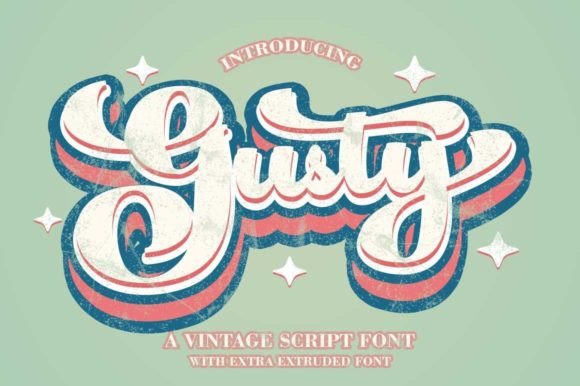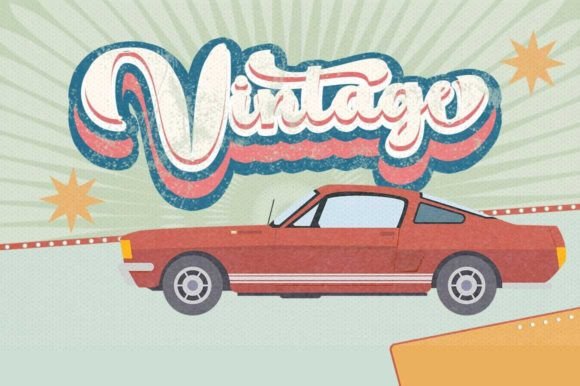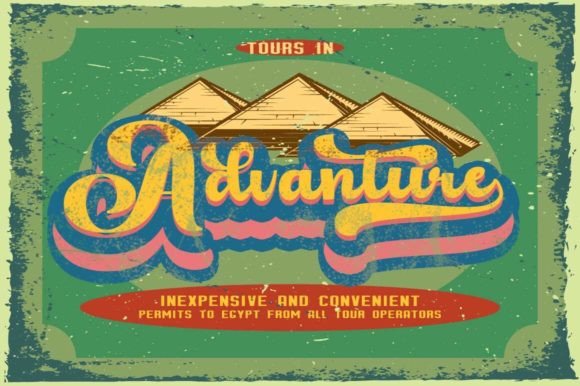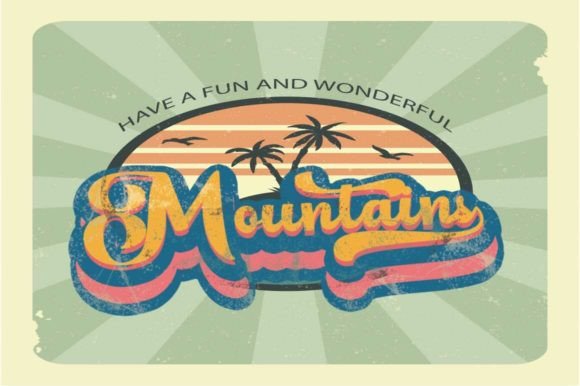
Gusty Font: Groovy Retro Script for Playful Vintage Designs!
About the Gusty Font
The wait is over! The incredible Gusty Font is now available for your design toolkit. Gusty is a retro groovy script font exuding vintage vibes and psychedelic flair. Its fluid strokes and whimsical curves evoke the free-spirited atmosphere of the 1960s and 70s. Perfect for posters, album covers, and branding projects seeking to infuse a nostalgic, playful energy into their designs.
Gusty thrives in display applications such as headlines, logos, and short textual elements on posters or packaging. Its playful nature makes it ideal for brands targeting a younger demographic or those with a retro-inspired aesthetic. Avoid using Gusty for body text or UI elements; its decorative style is unsuitable for extended reading.
Pairing Gusty with a clean sans-serif like Futura or a geometric sans-serif like Bebas Neue provides a strong contrast, grounding its whimsical energy. For a more vintage feel, consider pairing it with a serif like Playfair Display or a slightly more subdued script font with less pronounced curves.
The overall personality of Gusty is undeniably bold and playful, yet retains a touch of sophistication. It’s a versatile choice for projects requiring a vibrant, nostalgic feel without being overly childish or overwhelming.